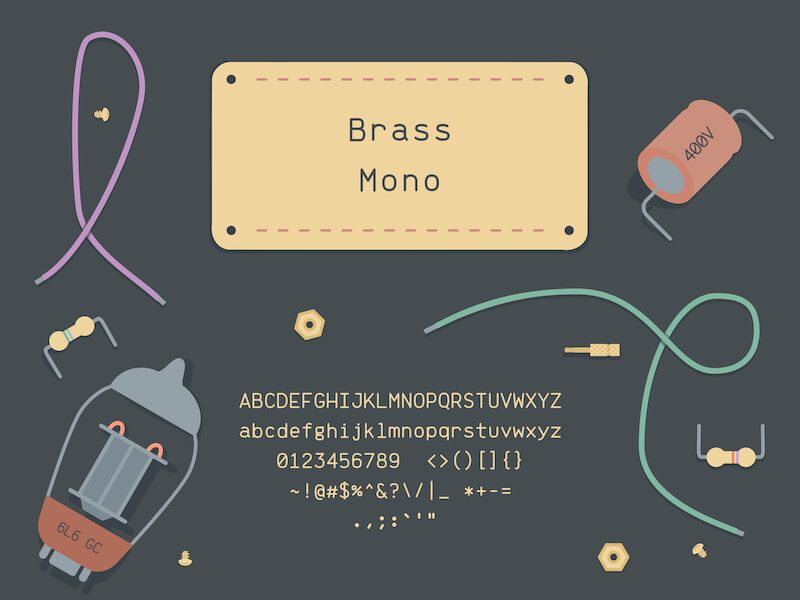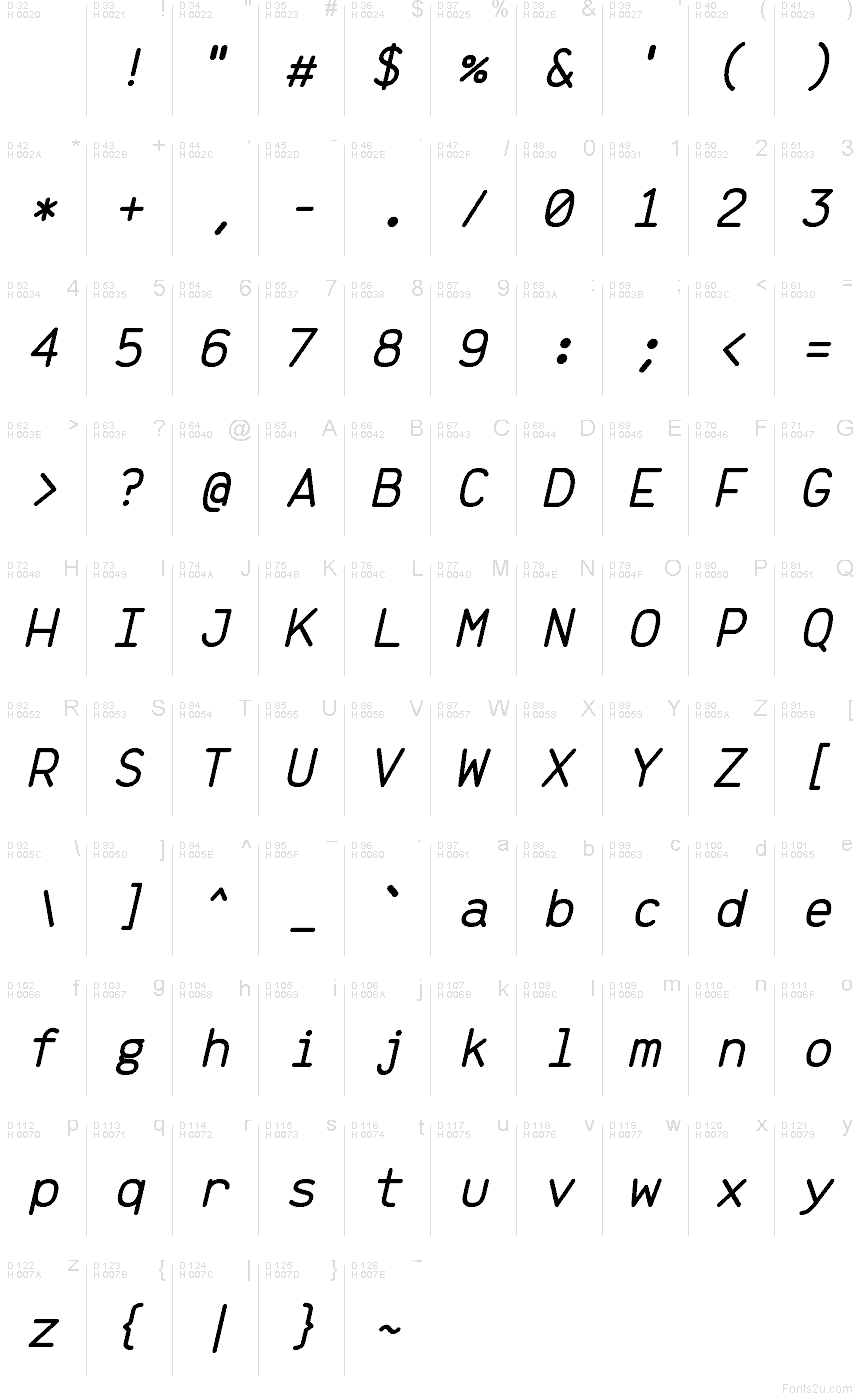
Brass Mono Italic
Brass Mono Italic font by The Brass Mono Project Authors brings a rare kind of motion to a fixed-width grid. Part of the Brass Mono family, this free fixed-width typeface keeps every character neatly aligned, yet the italic slant adds a quick, inky rhythm that feels more human than mechanical. It reads crisp and roomy, with a friendly, slightly quirky flow.
Using Brass Mono Italic works beautifully for code samples, terminal-style UI, developer docs, data tables, tech posters, and retro computer branding, and it also shines on captions where you want emphasis without breaking alignment. Pair it with a clean sans for body copy, and size it a touch larger for screenshots or dark-mode layouts—this free font stays clear and steady.
A free retro monospaced font inspired by 20th century electrical and mechanical design. It's open source and a solid choice for writing code.